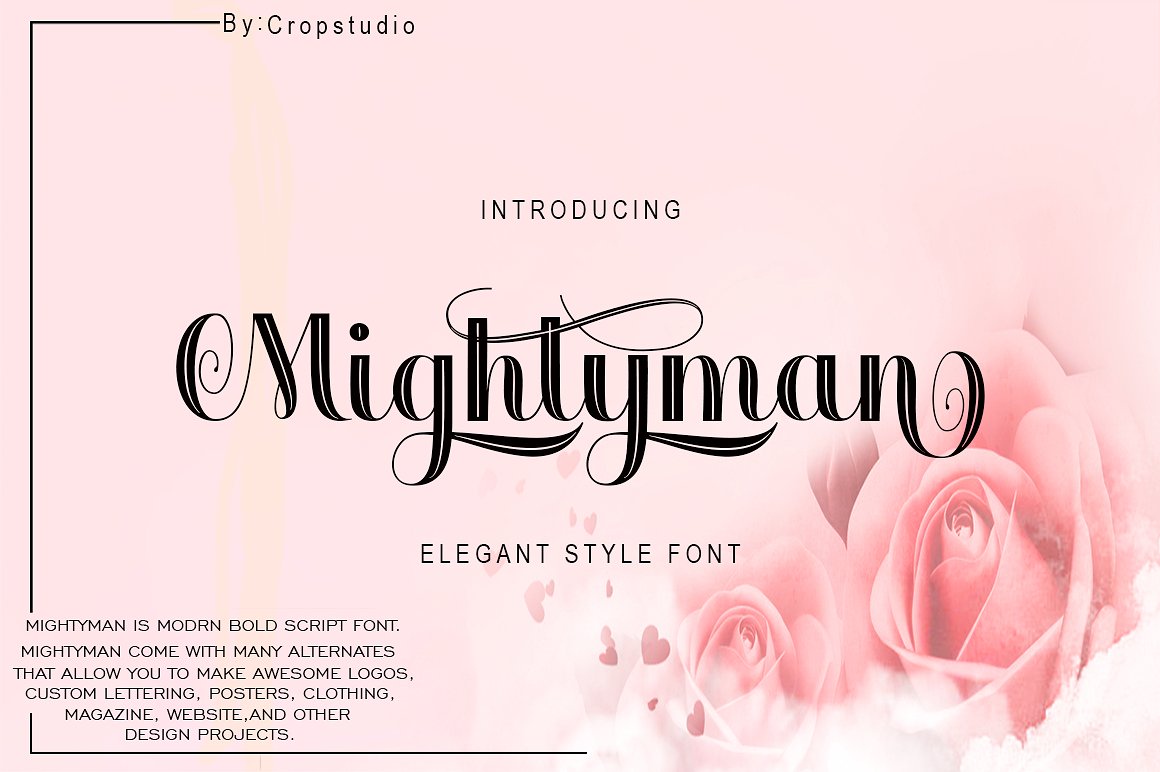
Mightyman Font
This Mightyman Font is perfect for superhero comic book designs, action movie titles, fitness gym branding, sports team logos, powerful gaming graphics, heroic entertainment materials, strength training equipment, masculine brand communications, adventure sports promotions, and dynamic hero-themed applications.
What makes this Mightyman Font exciting is its heroic strength that captures the commanding power and superhuman excellence of legendary heroes and unstoppable determination. The font features bold letterforms with heroic characteristics that convey superhuman strength, heroic courage, and mighty determination. Its powerful character and hero-inspired design make it ideal for brands seeking to communicate heroic excellence, superhuman capabilities, and mighty strength in entertainment and fitness markets.
The Mightyman Font family includes regular, bold, and black weights with heroic alternates, powerful variants, and mighty flourishes. This comprehensive heroic font family provides designers with powerful typographic tools to create superhuman compositions while maintaining the mighty character essential for superhero brands and heroic communications.
Entertainment companies and fitness brands consistently choose Mightyman Font Free Download for projects requiring authentic heroic appeal and superhuman strength. This font's distinctive mighty character perfectly captures the heroic excellence and powerful determination that resonate with audiences who appreciate superhero culture, heroic strength, and brands that embody unstoppable power and heroic achievement.
The powerful construction of Mightyman Font showcases heroically designed letterforms with mighty proportions that ensure exceptional strength across all heroic applications. Its superhuman appearance and heroic character create memorable impressions while maintaining the readability necessary for effective heroic communication and superhero materials.
Professional designers appreciate how Mightyman Font brings immediate heroic authenticity and superhuman power to brand communications. The font's mighty nature allows organizations to communicate heroic excellence and unstoppable strength while maintaining the professional quality necessary for effective positioning in entertainment and heroic fitness markets.
The inspiring appeal of Mightyman Font makes it particularly effective for brands emphasizing heroic strength, superhuman capabilities, and mighty determination. Its powerful character resonates strongly with audiences who appreciate superhero culture, heroic achievements, and brands that represent the unstoppable power and heroic excellence of legendary strength.
Whether developing branding for superhero entertainment or creating materials for heroic fitness programs, Mightyman Font Free Download provides the powerful typographic foundation that heroic brands need to communicate their superhuman excellence, mighty strength, and the heroic determination that defines legendary superhero culture and unstoppable achievement.